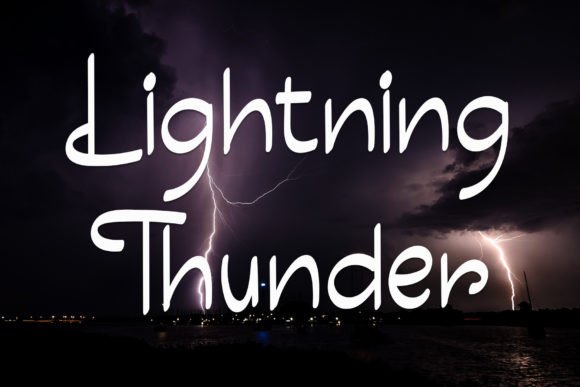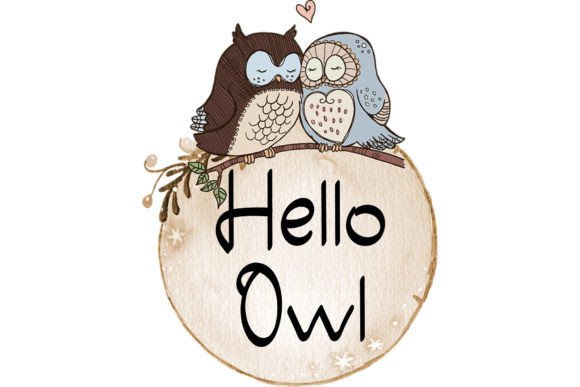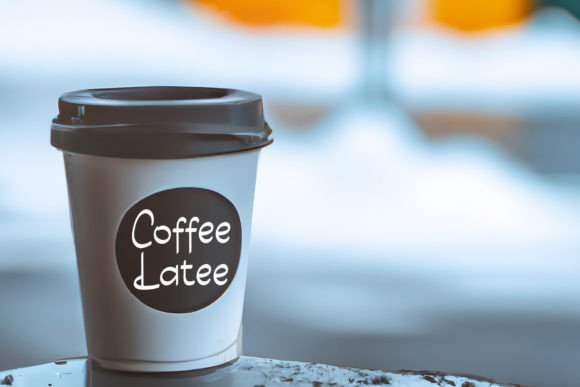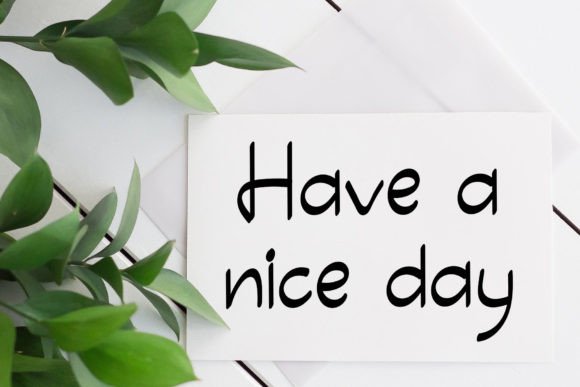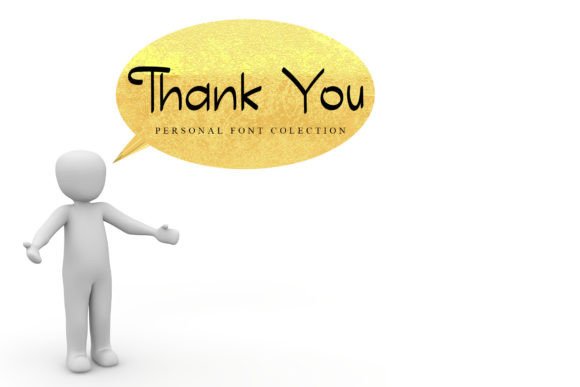
HomeScript FontsLightning Thunder Script Fonts Lightning Thunder FacebookXPinterestWhatsApp 1 of 5 Lightning Thunder Poster 2... Lightning Thunder Poster 3... Lightning Thunder Poster 4... Lightning Thunder Poster 5... About Lightning Thunder is a cute and friendly handwritten font. Add it to your creative ideas and enjoy the results! DOWNLOAD NOW People also explored Reconnect Font Party City Font Kikola Nafi Font Sunrise Font Snakebite Font Keronige Font Truck Title Font Caty Loves Football Font Glowing Font 464 0 TagsLightning Thunder Previous articleSimple BeautifulNext articleBalloon Heart LEAVE A REPLY Cancel reply Comment: Please enter your comment! Name:* Please enter your name here Email:* You have entered an incorrect email address! Please enter your email address here Website: Save my name, email, and website in this browser for the next time I comment. Personal Use Free Airmole Personal Use Free Read more about this font Pattern Personal Use Free Read more about this font Rookie Mastering Personal Use Free Read more about this font I Am Exceptional Personal Use Free Read more about this font BLOG 5 Fonts That Will Dominate Design Trends in 2026 5 Fonts for 2026 That Will Dominate Design Trends Typography plays a critical role in visual communication, and as we look ahead to 2026, it’s... Transform Your Website: Elevate Your Typography with 7 Best Web Font Generators The 10 Best Handwriting Fonts to Add Personality to Your Designs Fonts That Capture the Spirit of New York City